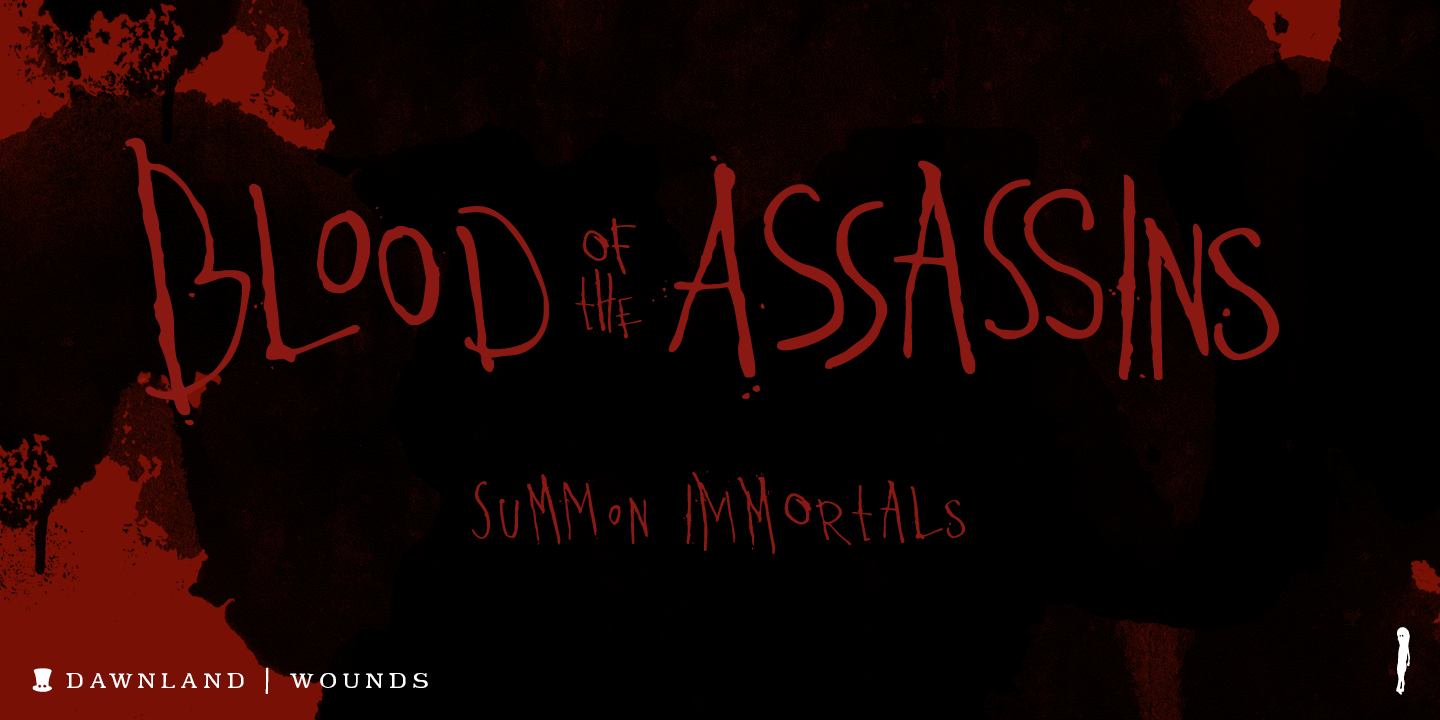
The Wounds Font is an excellent choice for designs that demand a raw, intense, and often distressed or gritty aesthetic, perfect for conveying a sense of impact, struggle, or unpolished authenticity. Imagine it screaming from the covers of post-apocalyptic game titles, adding a visceral and authentic feel to horror movie posters, or bringing a distinctive, rebellious vibe to underground music band merchandise. It's also perfectly suited for captivating event promotions for survival-themed experiences, unique branding for edgy fashion lines, and any project where you want to evoke a sense of rawness, defiance, and immediate visual punch. With its distinctive, often fragmented, scratched, or textured forms, the Wounds Font is ideal for projects that aim for maximum attitude and a memorable, unrefined impression.
What makes the Wounds Font truly exciting is its ability to instantly project a sense of powerful emotion and unfiltered communication. It feels genuinely marked by struggle or impact, instantly giving your designs an intense and exclusive quality. This font often features irregular edges, aggressive cuts, or intentional imperfections that add character and depth, setting it apart from pristine digital typefaces. It's perfect for establishing a brand identity that feels bold, resilient, and unapologetically unique, ensuring your visual communication is not just seen, but truly felt. The Wounds Font Free Download offers a fantastic opportunity to infuse your projects with this distinctive character.
The Wounds Font family is typically designed to offer versatility while maintaining its signature raw and impactful style. While specific family members can vary, you can often expect to find:
Wounds Regular: The primary distressed or gritty style.
Wounds Bold: For even greater emphasis, often with increased visual weight or more pronounced damage.
Wounds Outline: For a stark, hollow display effect.
Wounds Italic (or Oblique): For a dynamic, slanted appearance.
Wounds Rough or Textured: Specifically designed for a more intense, worn-out, or grunged look.
These variations provide flexibility for different design applications, allowing you to create engaging visual hierarchies and maintain a consistent, powerful aesthetic across all your projects.